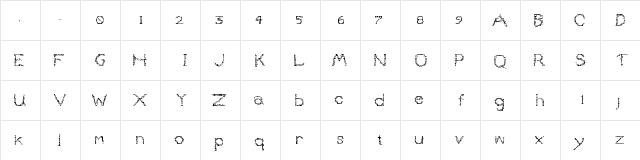
Twigs Regular
Design Context for Twigs Typeface
Twigs is a composed and adaptable typeface that performs quietly and consistently across a wide range of design contexts.